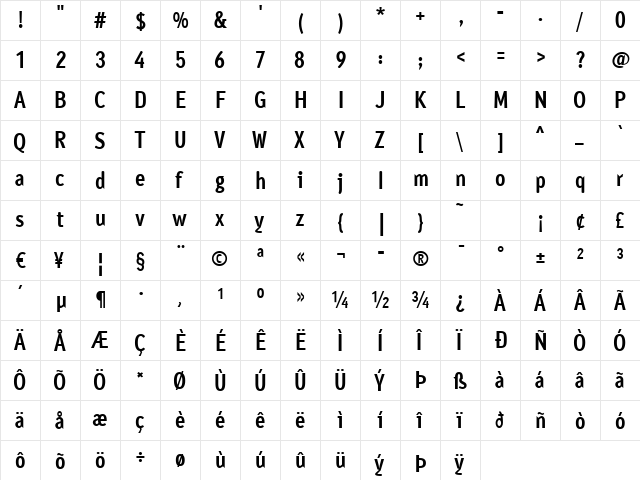
Ayumi Bold Regular Font Preview
Ayumi Bold Regular
Ayumi Bold Regular Font Details
Design Context for Ayumi Bold Typeface
Ayumi Bold is a composed and adaptable typeface that performs quietly and consistently across a wide range of design contexts. Its bold stroke weight gives it real presence on the page.